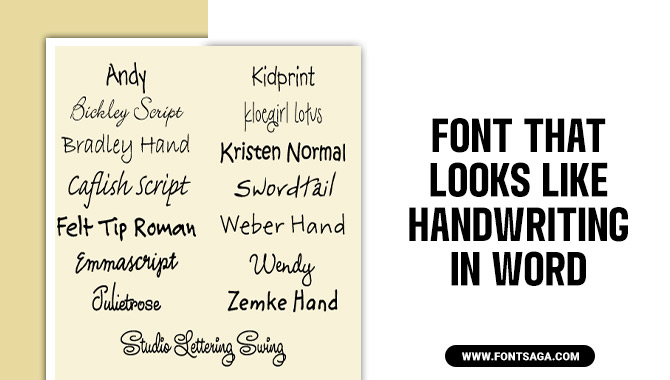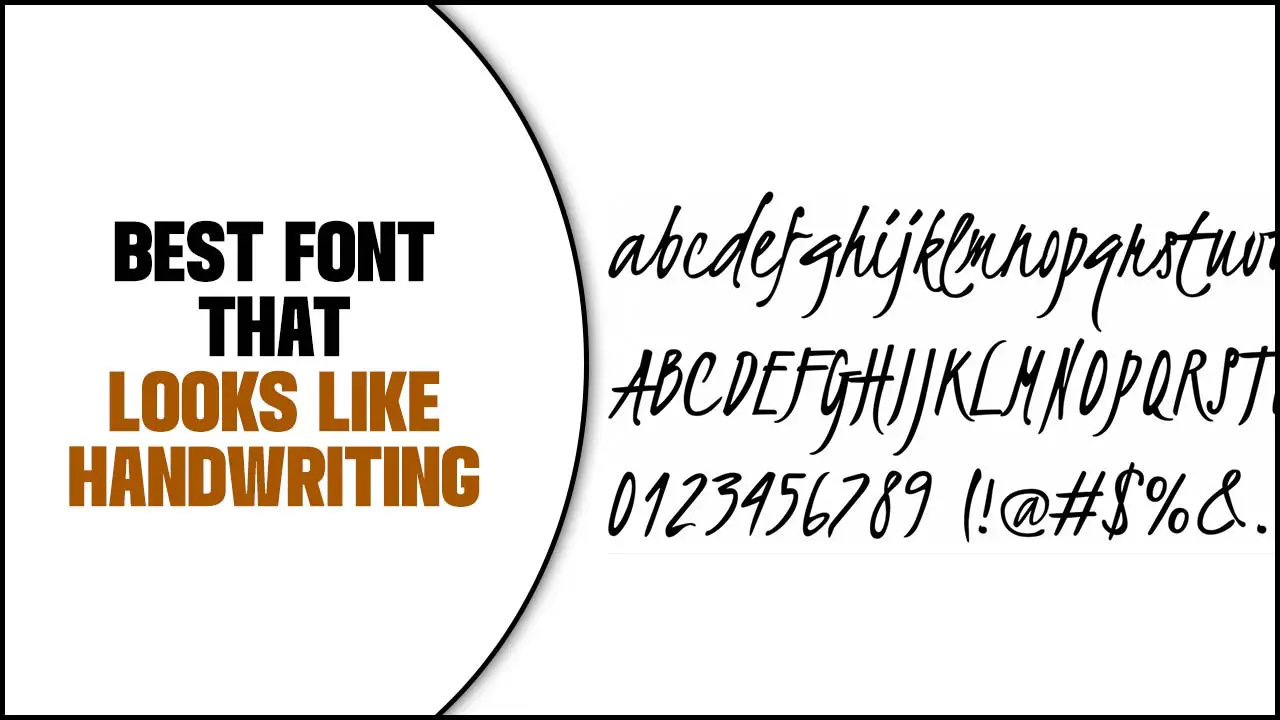
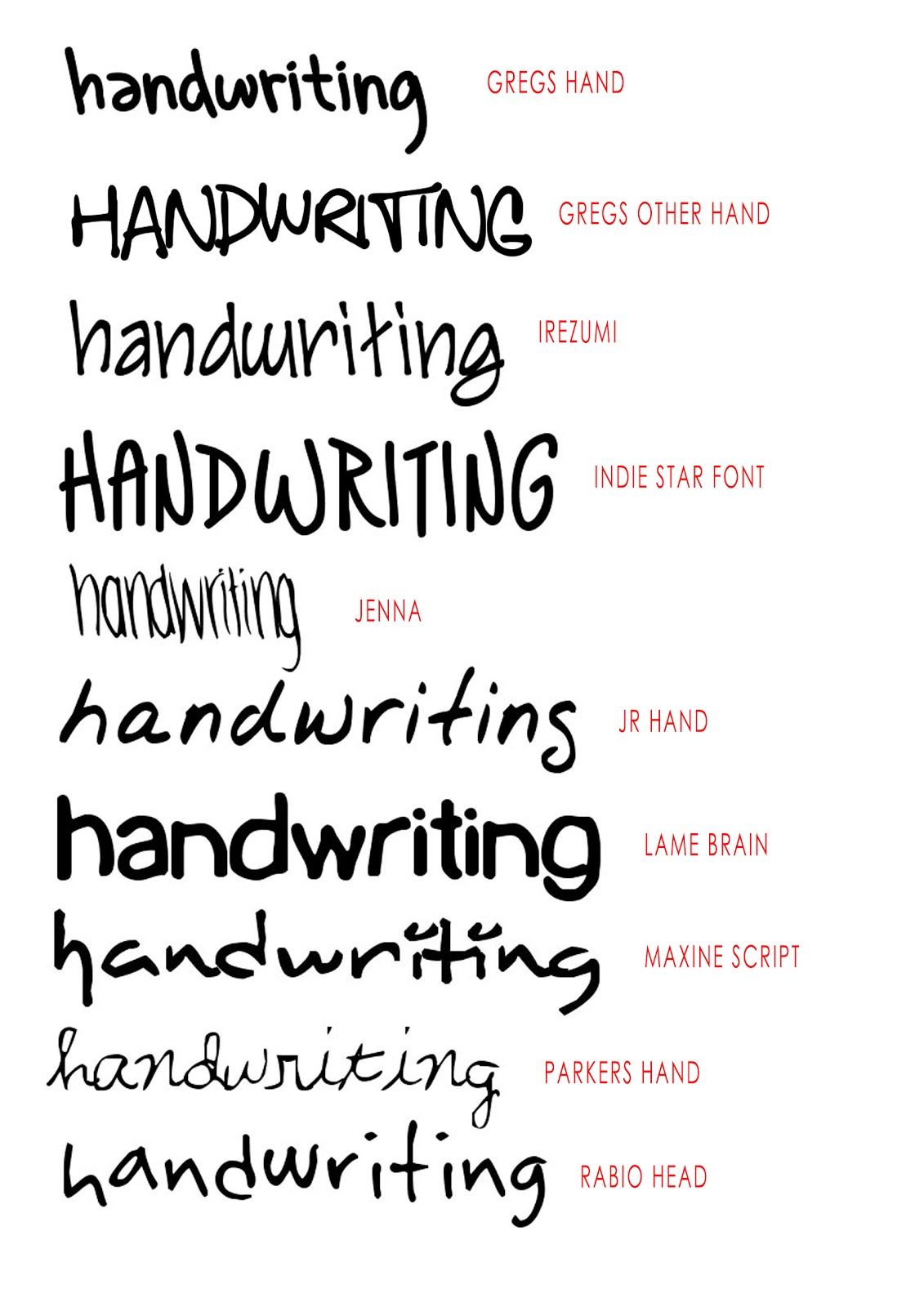
What Is The Best Font That Looks Like Handwriting
We ve found 19 unique handwritten fonts that look like real handwriting realistic and natural each with their own individual personality You ll find a range of styles in this list marker fonts pencil fonts feminine fonts messy fonts cursive
In this article I ve specifically looked at the more standard straightforward print Google fonts that look like handwriting However if you would like to see some absolutely gorgeous script or
Discover the 55 best free handwriting fonts for 2025 From modern and elegant to whimsical and retro styles find the perfect font for your projects Download them all for free and learn expert tips on choosing the ideal handwriting font for your
From flowy cursive scripts to bold brushstroke typefaces here are 10 of our favorite handwriting fonts to give your projects an air of individuality 1 Billy Ohio a handwriting typeface by Alit Design is a dry brush script font that
Whether you want something that looks elegant or something that feels more relaxed the right handwriting font can help you achieve that look We ve put together a list of some of the best handmade fonts you can find
Our curated selection of top handwriting fonts includes Brandon Smith Monoline Font Calorie Script Font Patrick Hand Marhaban Font and Balqis Font Whether you re working on invitations logos or social media
- Many bloggers share their innovative designs as well as templates for free.
- These blogs cover a wide range of interests, that range from DIY projects to planning a party.
Maximizing What Is The Best Font That Looks Like Handwriting
Here are some creative ways of making the most use of printables that are free:
- Print and frame gorgeous art, quotes, or festive decorations to decorate your living areas.
- Print free worksheets to help reinforce your learning at home and in class.
- Designs invitations, banners and decorations for special occasions like birthdays and weddings.